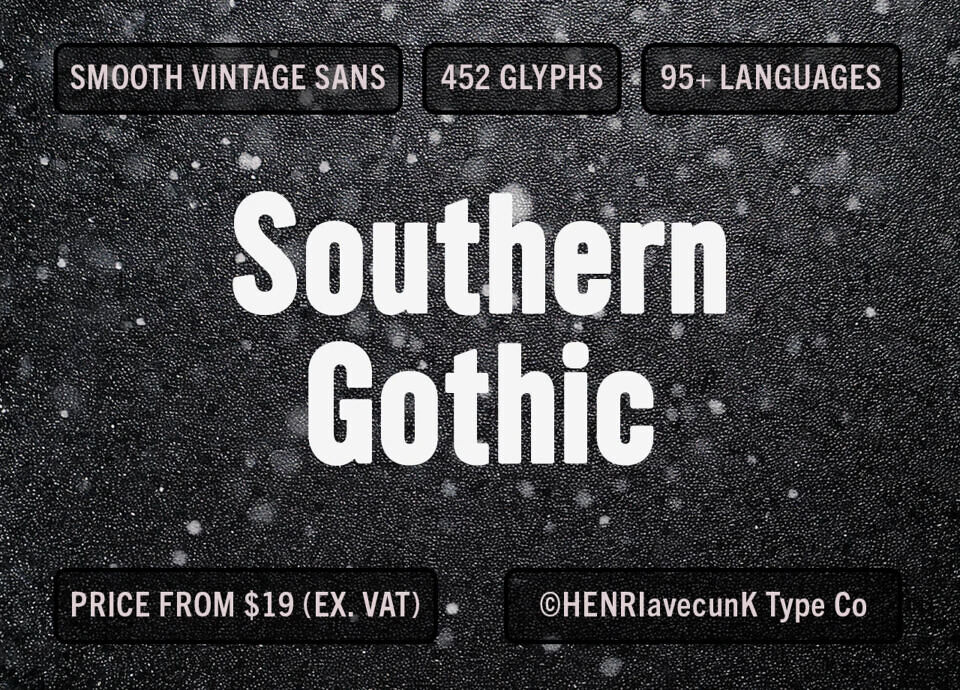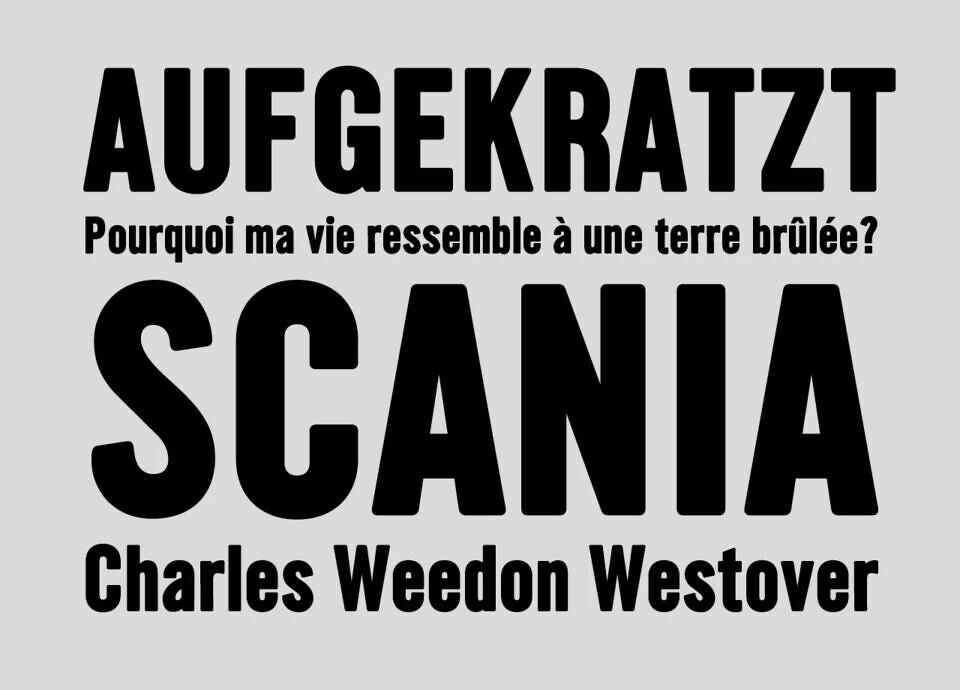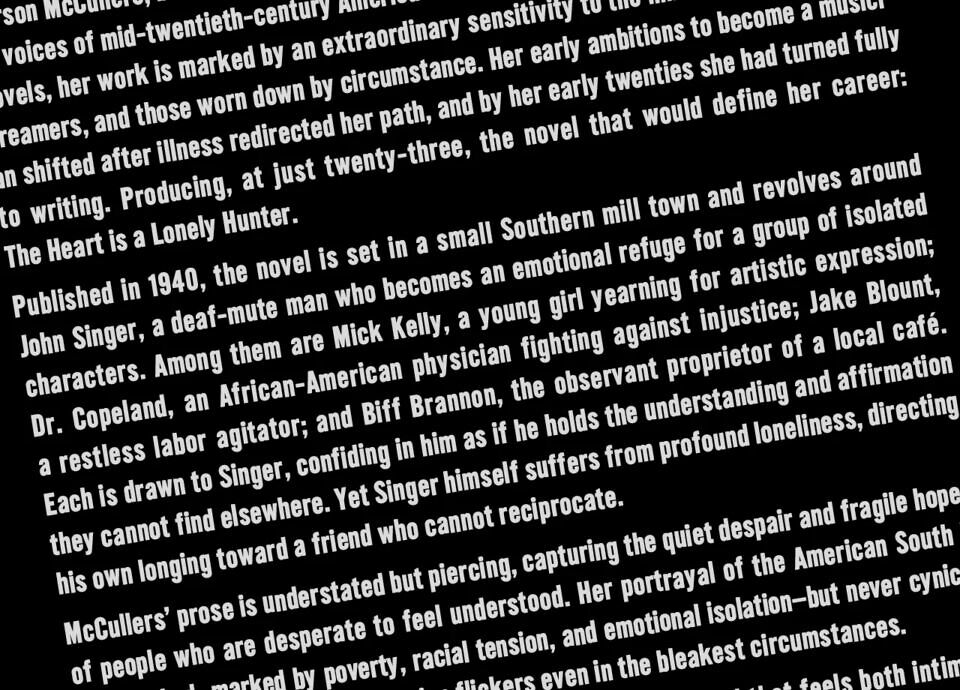
Southern Gothic is a smooth, soft, and highly legible vintage typeface with a warm, authentic feel. It’s multilingual and comes with 452 glyphs, giving you plenty of creative freedom.
All major Latin-based languages are fully supported, along with many smaller ones. Selected glyphs — such as “g” and “3” — include alternate designs, so you can fine-tune the look to perfectly suit your project.